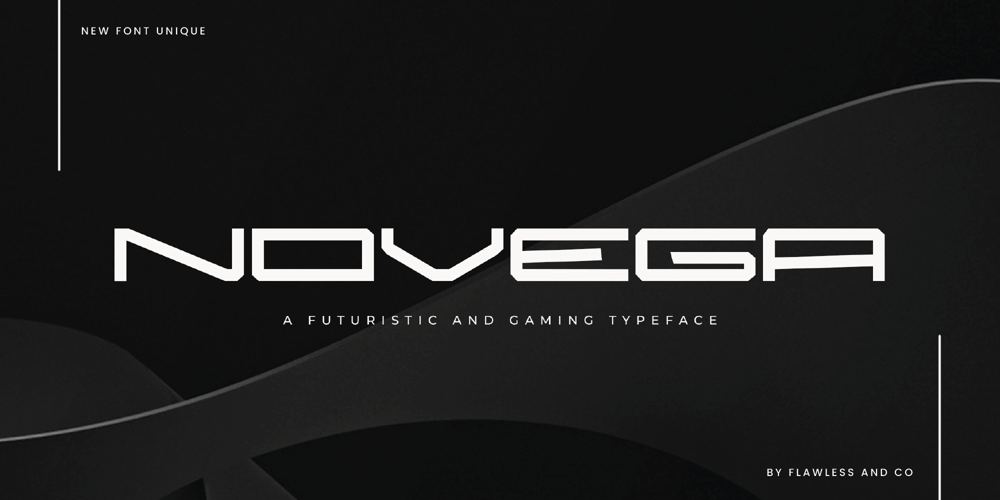
Novega Font Family was designed by Achmad Yani and published by Flawlessandco. Novega contains 1 styles and family package options. Introducing “Novega,” a sleek and dynamic font designed to capture the energy and innovation of the gaming world. With its sharp, futuristic design, Novega is the perfect choice for game titles, user interfaces, esports branding, and any project that demands a cutting-edge, modern aesthetic.There’s some connected letters and some alternates that suitable for any graphic designs such as branding materials, t-shirt, print, business cards, logo, poster, t-shirt, photography, quotes .etcThis font support for some multilingual. Also contains uppercase A-Z and lowercase a-z, alternate character, numbers 0-9, and some punctuation.If you need help, just write me! Thanks so much for checking out my shop!